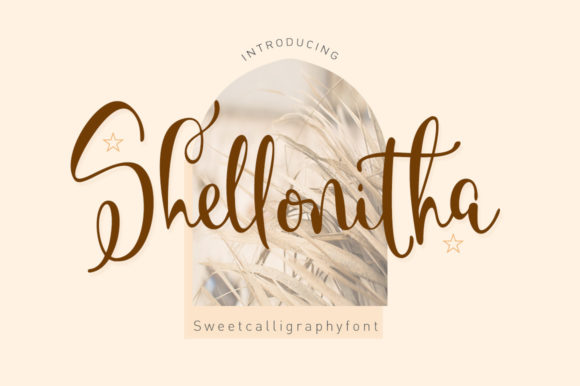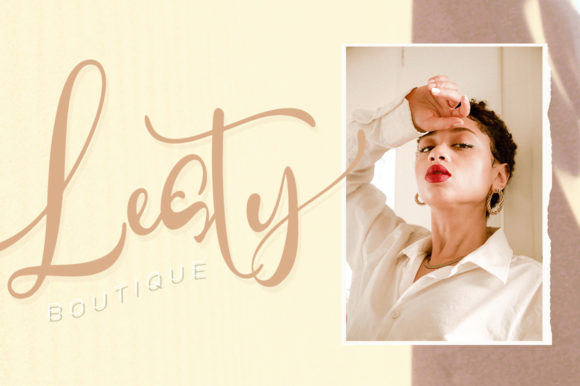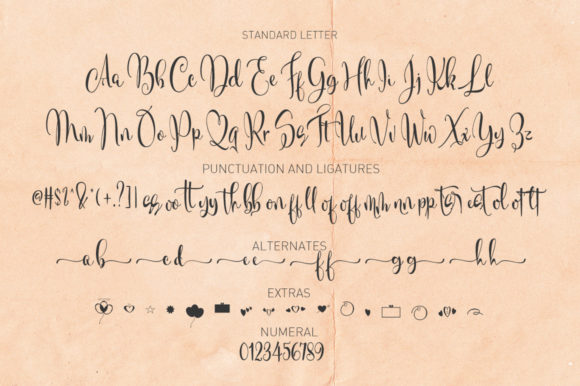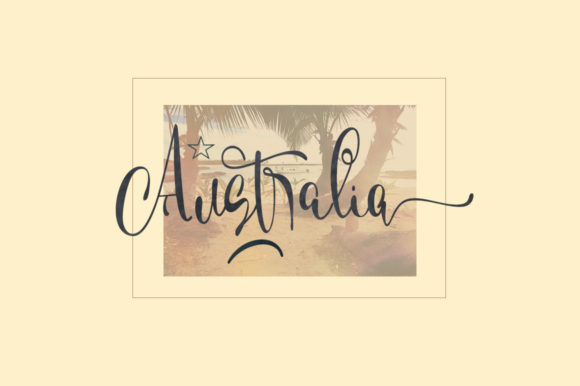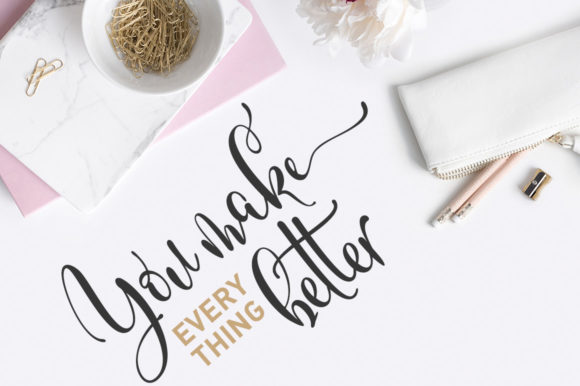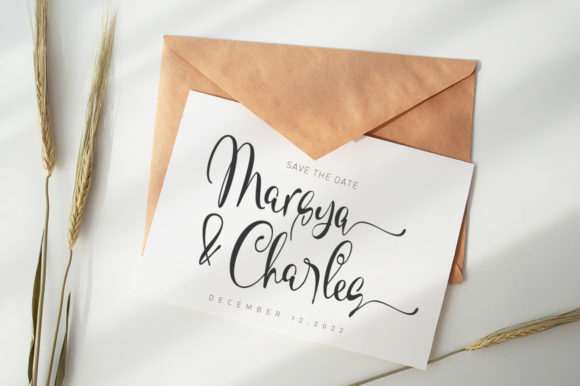
About Shellonitha Font
Shellonitha is a sweet and cursive handwritten font. This gentle font will look gorgeous on a variety of design ideas. It will add a joyful and romantic touch to each of your projects!